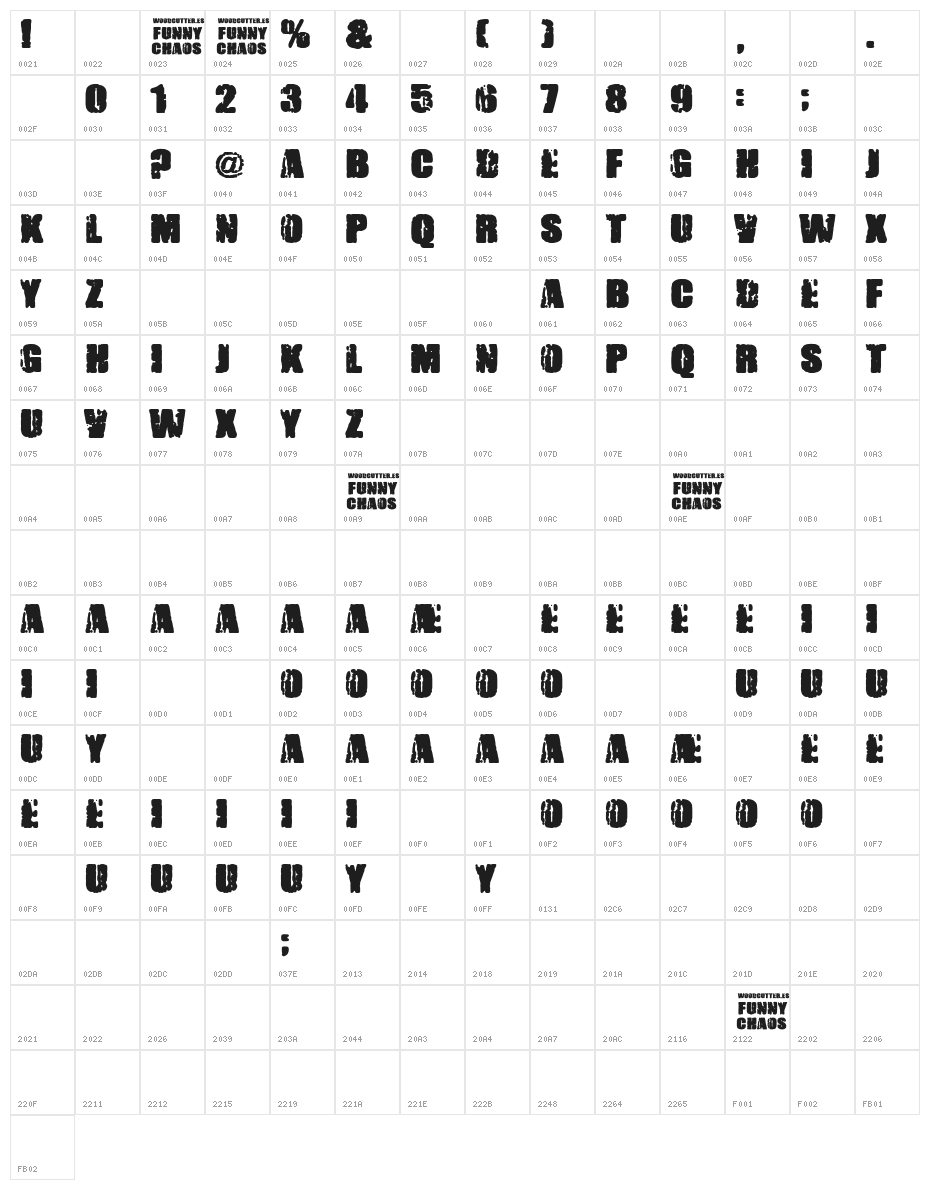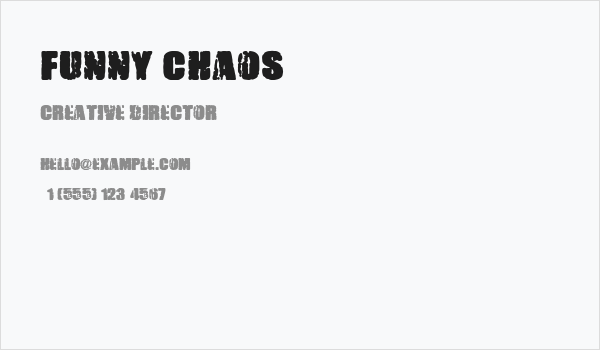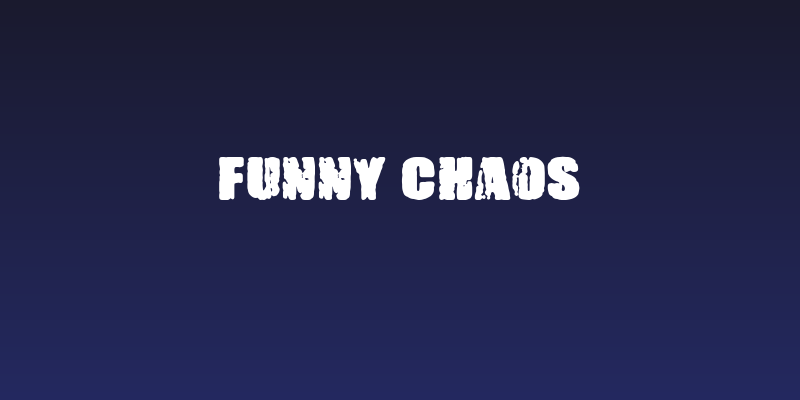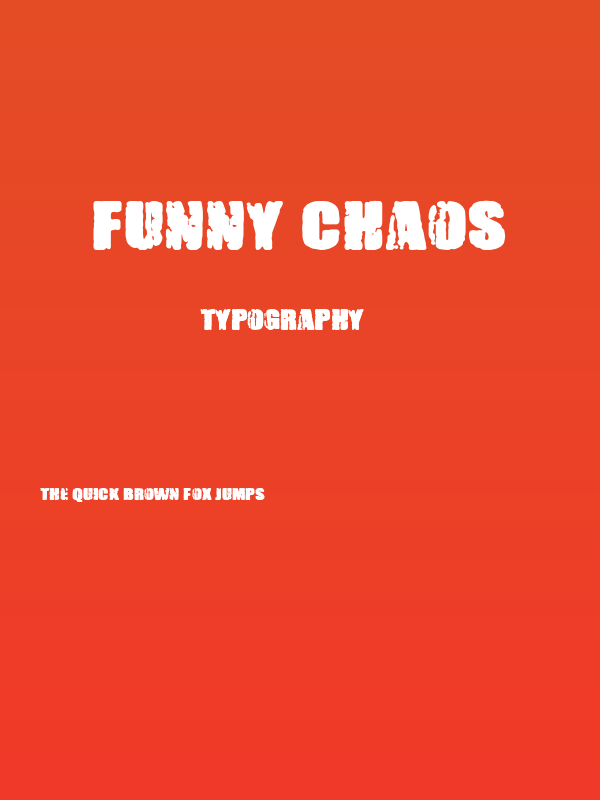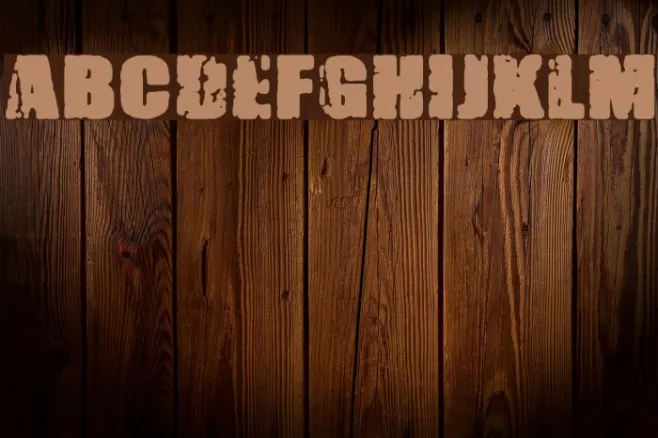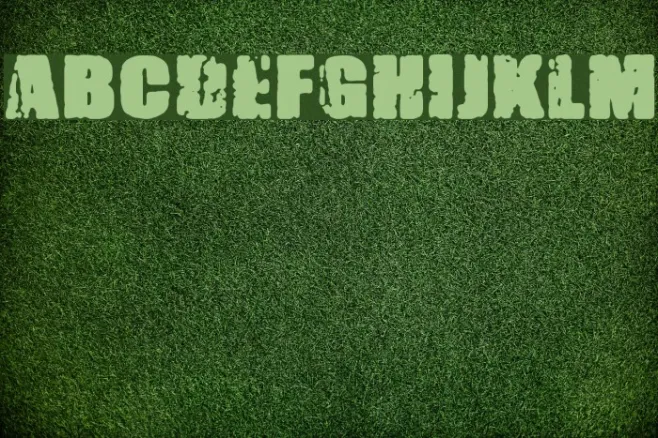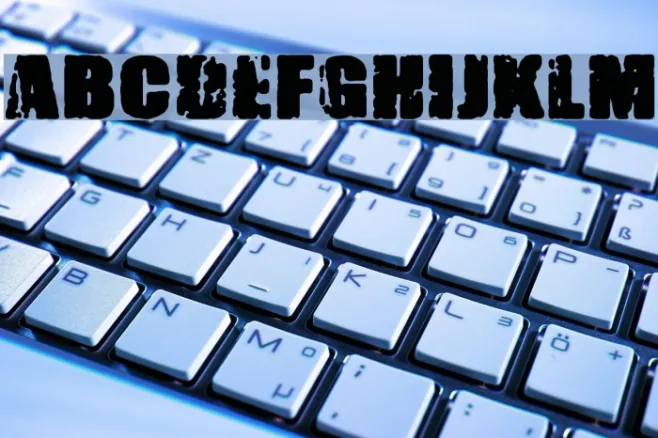
FUNNY CHAOS Font
FUNNY CHAOS Description
This font features a bold and distressed style, characterized by its rough, chaotic edges and uneven texture. The letters appear as if they have been eroded or splattered, giving them a grunge and rebellious look. The uppercase and lowercase letters maintain a consistent weight, contributing to a cohesive yet dynamic appearance. The numbers and special characters follow the same distressed aesthetic, ensuring uniformity across all glyphs. This font's unique style makes it stand out, perfect for projects that require a bold statement or an edgy, artistic touch.
| Overall Style | Grunge, Edgy |
| Proposed Projects | Ideal for music album covers, streetwear branding, event posters, and edgy graphic designs. |